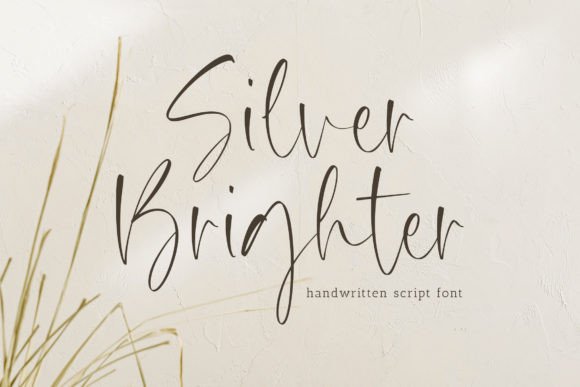
Introducing Silver Brighter Font - A Handcrafted Masterpiece for Game Designers
Unleash the magic of words with Silver Brighter Font, a stunning creation from Timur Type. Step into a world of captivating storytelling and let your imagination soar. Every curve, every stroke of Silver Brighter is meticulously crafted to ignite your creativity and bring your game designs to life.
Tailored specifically for game designers, this script font possesses an enchanting charm that will immerse players in your virtual worlds. Its elegant lines flow seamlessly, creating a visual symphony that elevates the gaming experience. Whether you're designing character dialogues, crafting spellbinding quest descriptions, or creating captivating UI elements, Silver Brighter will add a touch of sophistication and allure.
Embrace the Power of Silver Brighter Font:
1. Unparalleled Beauty:
Silver Brighter Font captivates with its exquisite beauty. Each letter dances across the screen with grace and elegance, leaving players mesmerized. Its timeless design transcends trends, ensuring that your games remain visually appealing for years to come.
2. Versatility Unbound:
From fantasy realms to modern metropolises, Silver Brighter Font seamlessly adapts to diverse game genres. Whether you're creating a medieval RPG, a futuristic shooter, or a whimsical puzzle game, this font will effortlessly complement your vision. Unleash your creativity and explore endless possibilities.
3. Clarity and Legibility:
In the fast-paced world of gaming, clear communication is paramount. Silver Brighter Font ensures that every word, every line of dialogue is crystal clear and easy to read. Players can fully immerse themselves in your game's narrative without struggling to decipher text.
4. Customization at Your Fingertips:
Make Silver Brighter Font your own. Experiment with different colors, sizes, and effects to create a unique look that perfectly matches your game's aesthetics. With endless customization options, you have the freedom to craft a truly immersive experience that captivates players from the very first moment.
5. Trusted by Industry Leaders:
Game designers worldwide have discovered the transformative power of Silver Brighter Font. From indie developers to AAA studios, this font has become a trusted choice for creating games that leave a lasting impression. Join the ranks of successful game designers and elevate your projects with Silver Brighter.
Step into the realm of captivating storytelling with Silver Brighter Font. Experience the magic of words as they dance across the screen, igniting the imagination and leaving players spellbound. Let Silver Brighter be your creative companion, guiding you toward crafting unforgettable game designs that redefine the boundaries of storytelling.